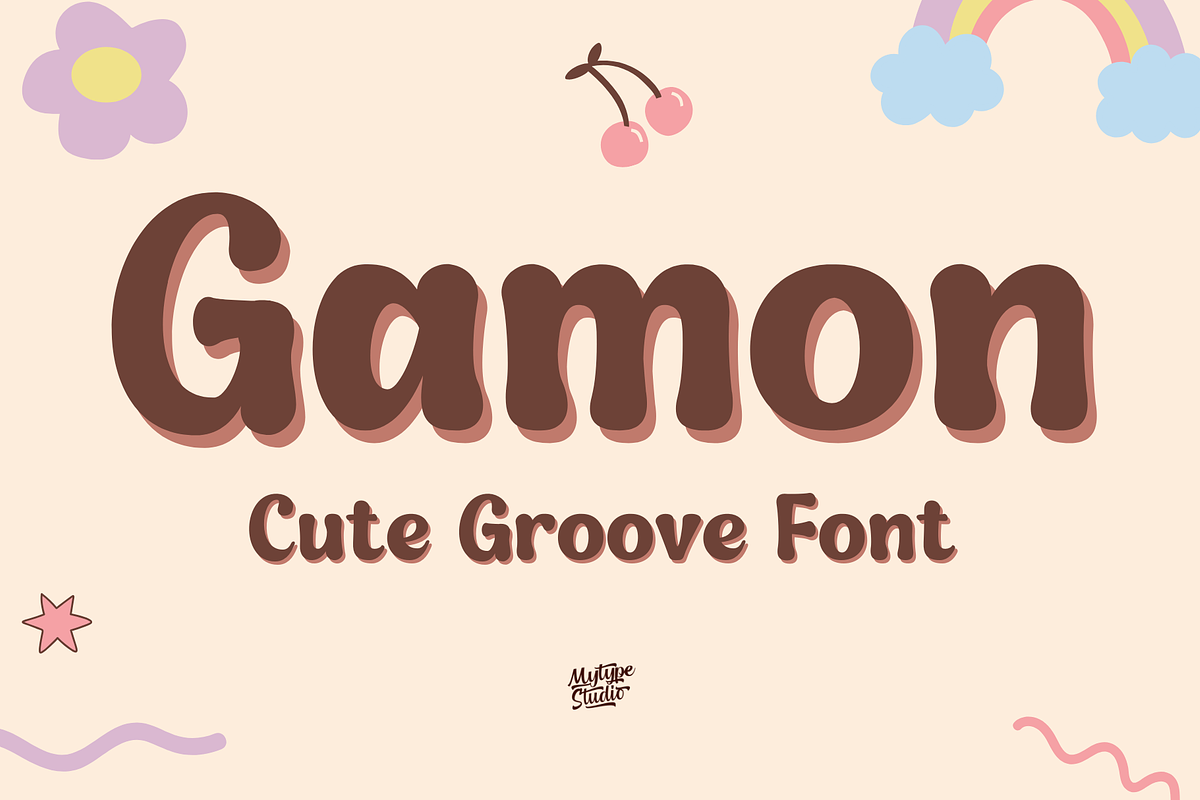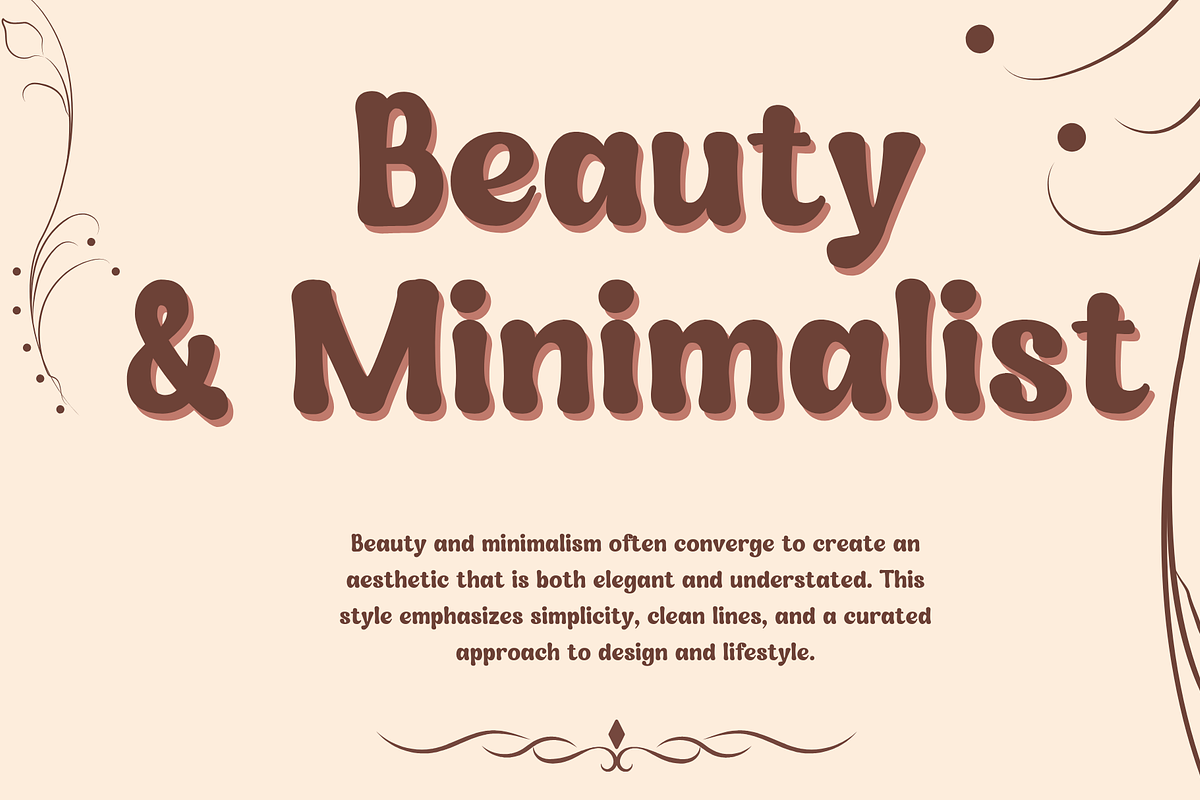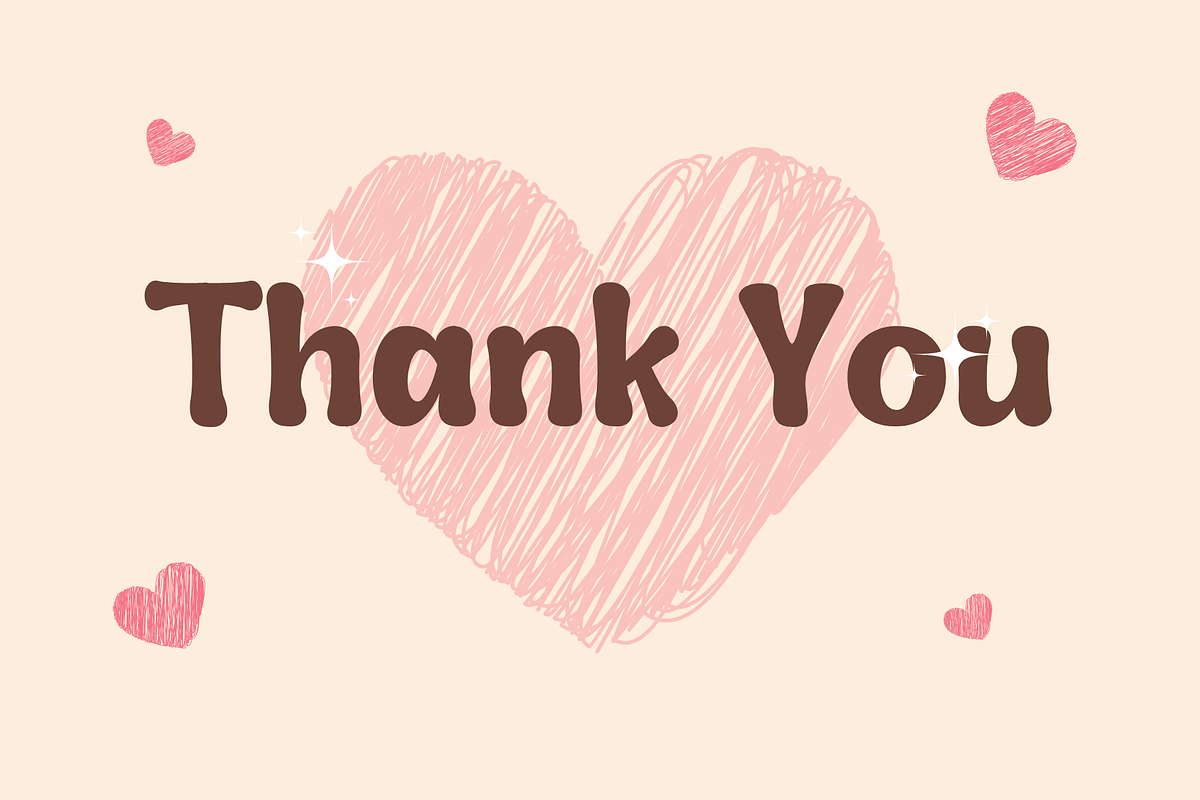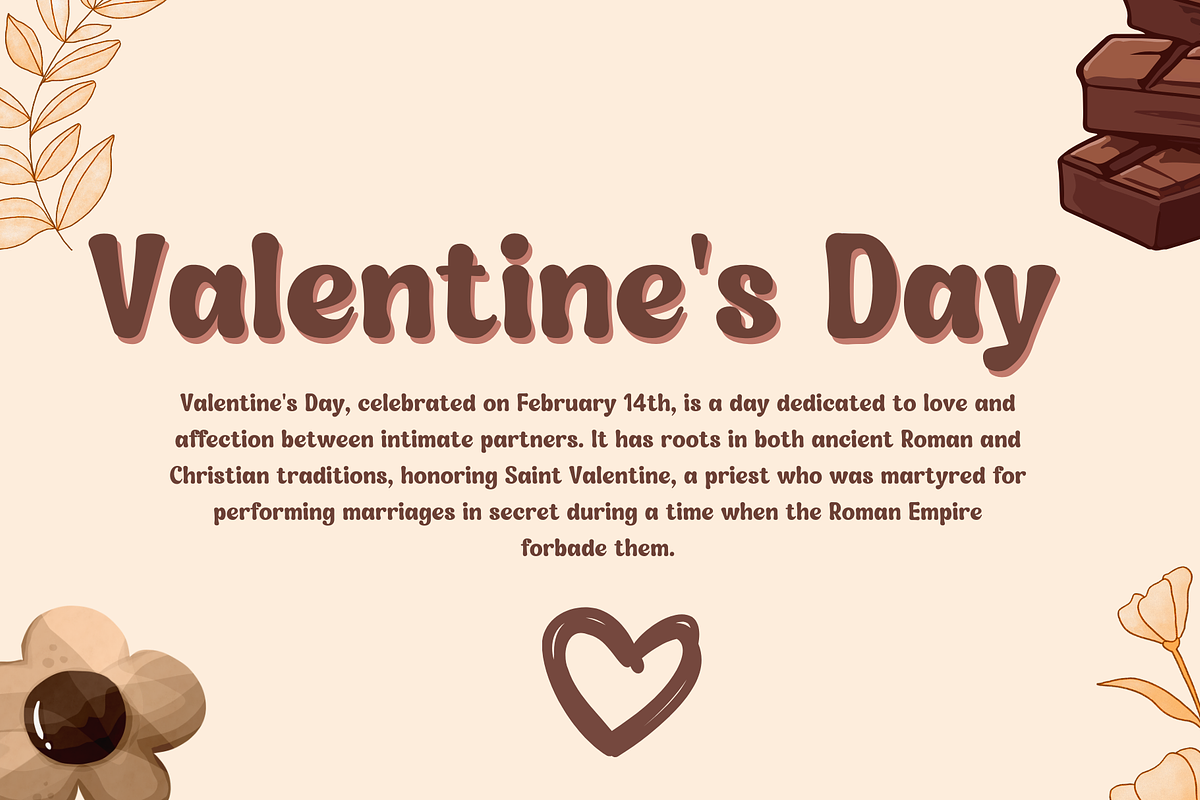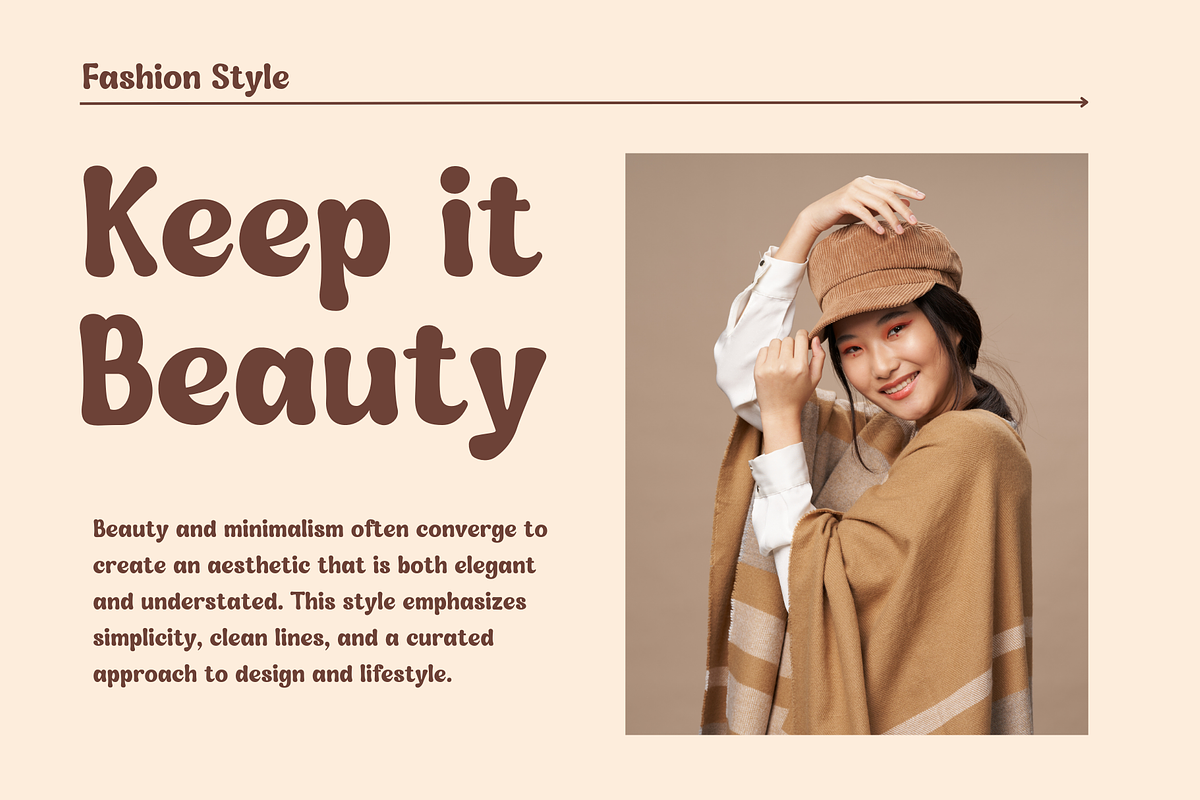
Gamon - Cute Groove Font
Introducing Gamon, a delightful Cute Groove Font that brings playful charm to your designs! Gamon features smooth, rounded edges and a whimsical groove style, making it perfect for projects that need a touch of fun and friendliness. Whether you’re working on children’s books, branding, packaging, social media graphics, or greeting cards, Gamon will add a cheerful personality to your creations.